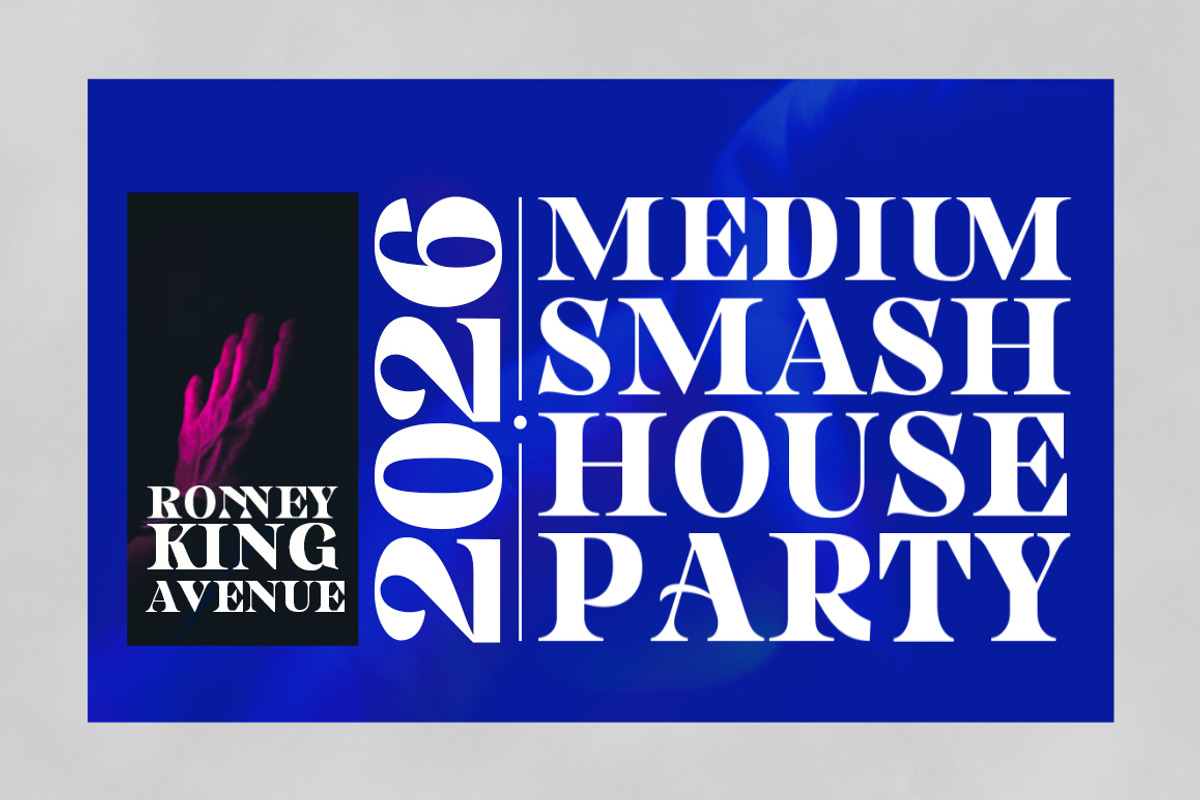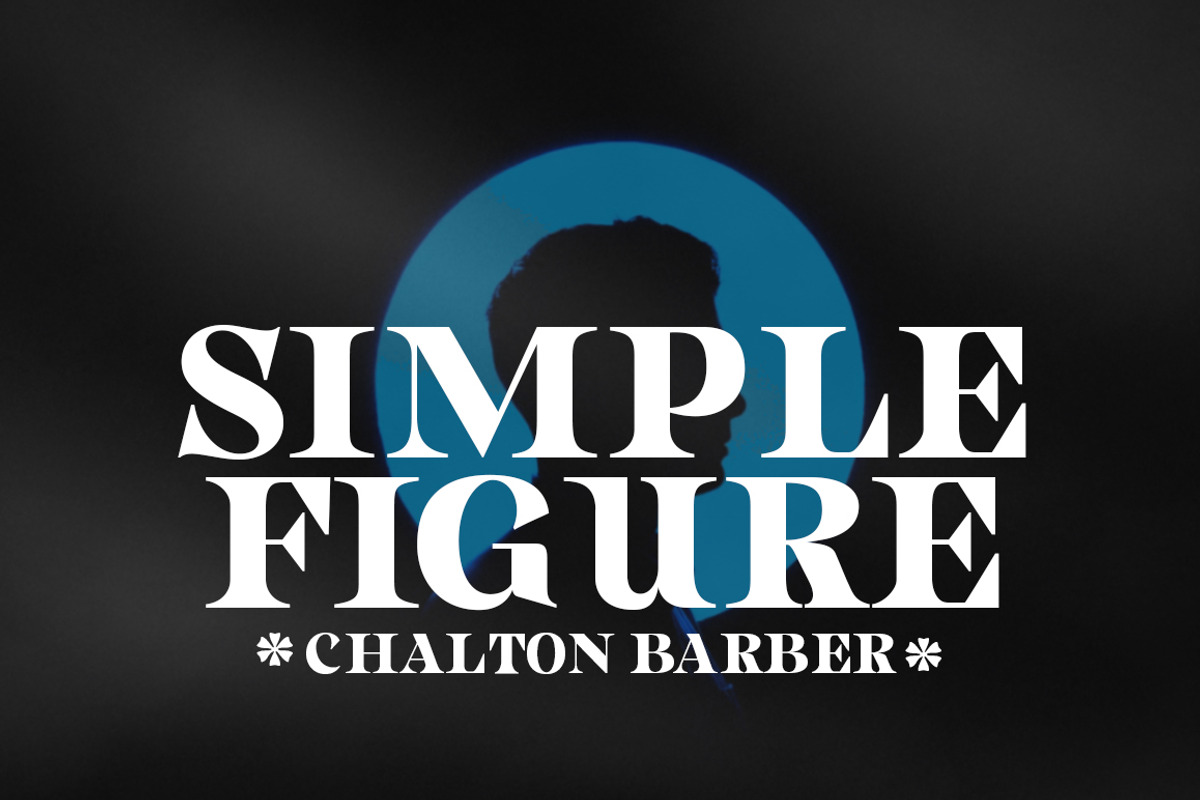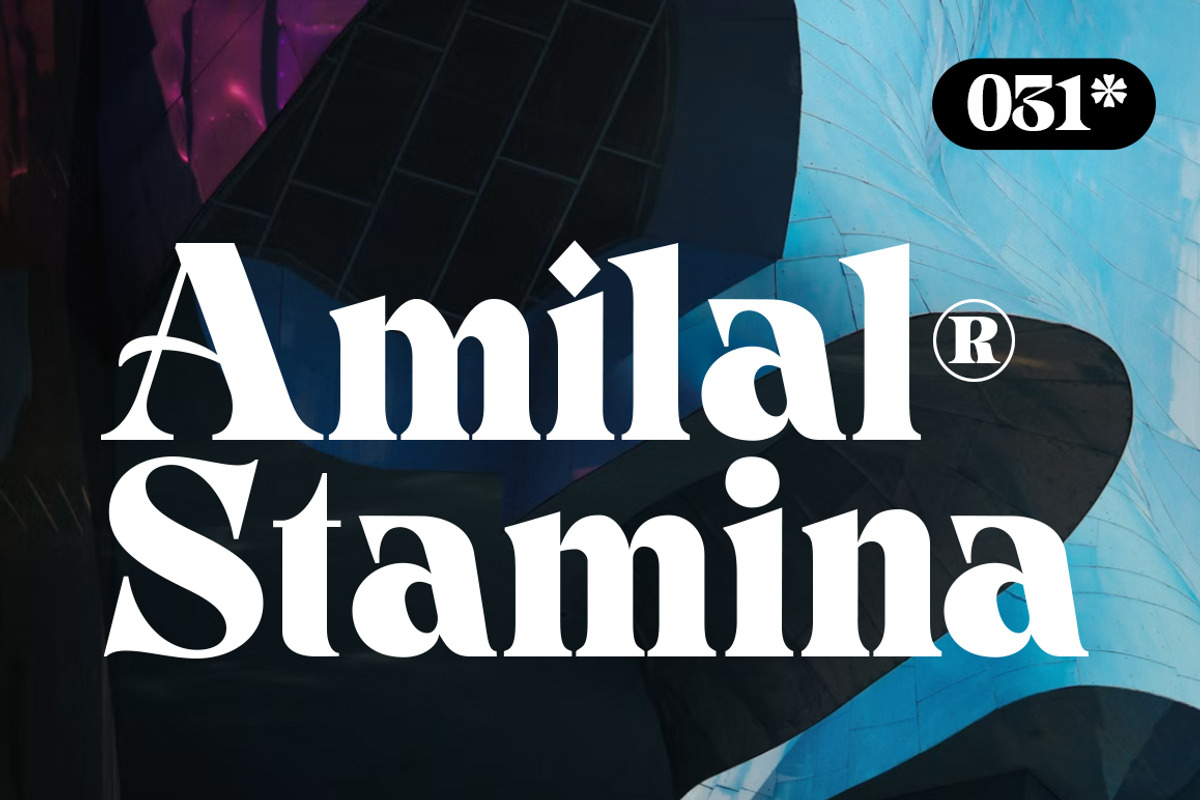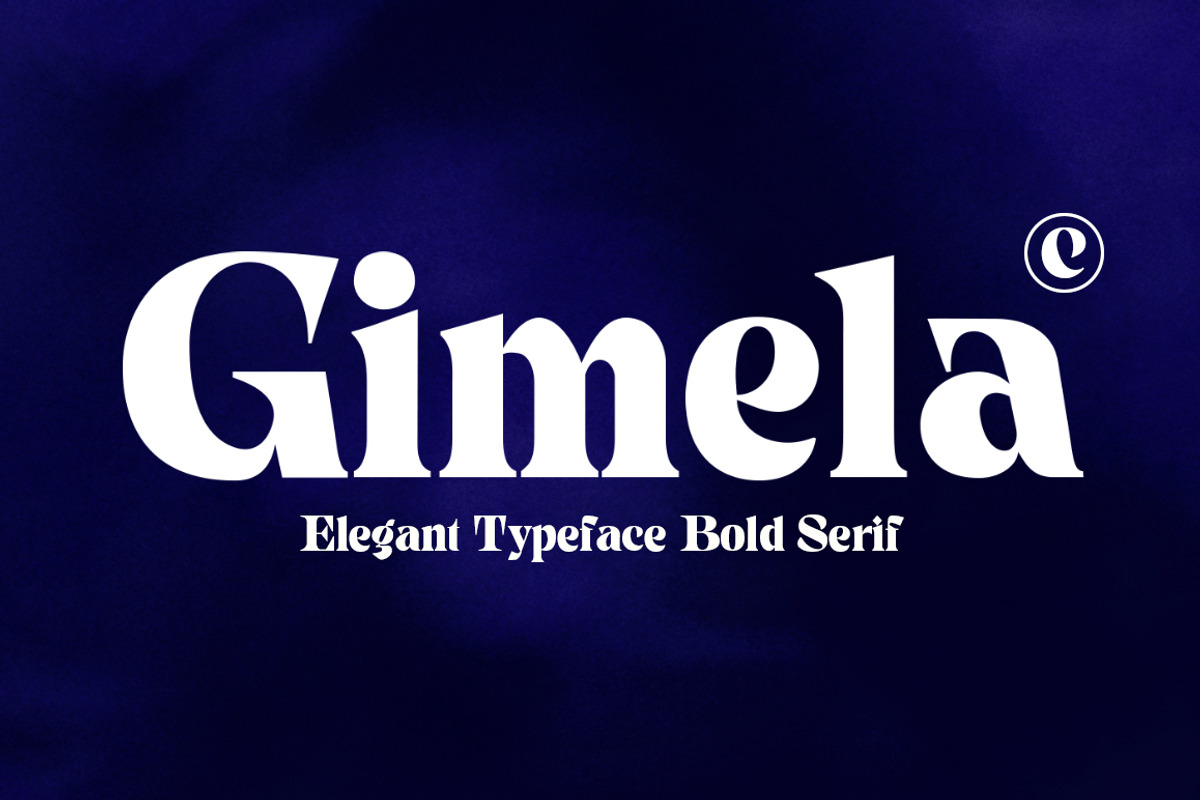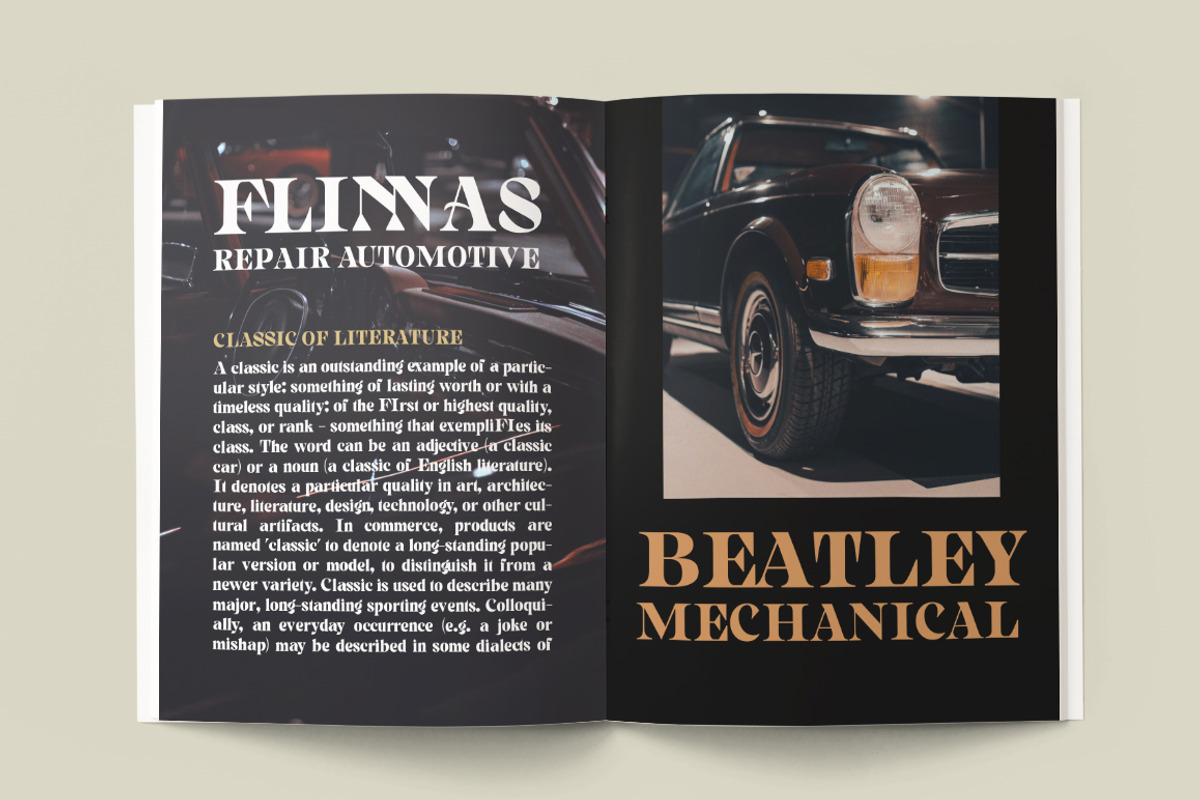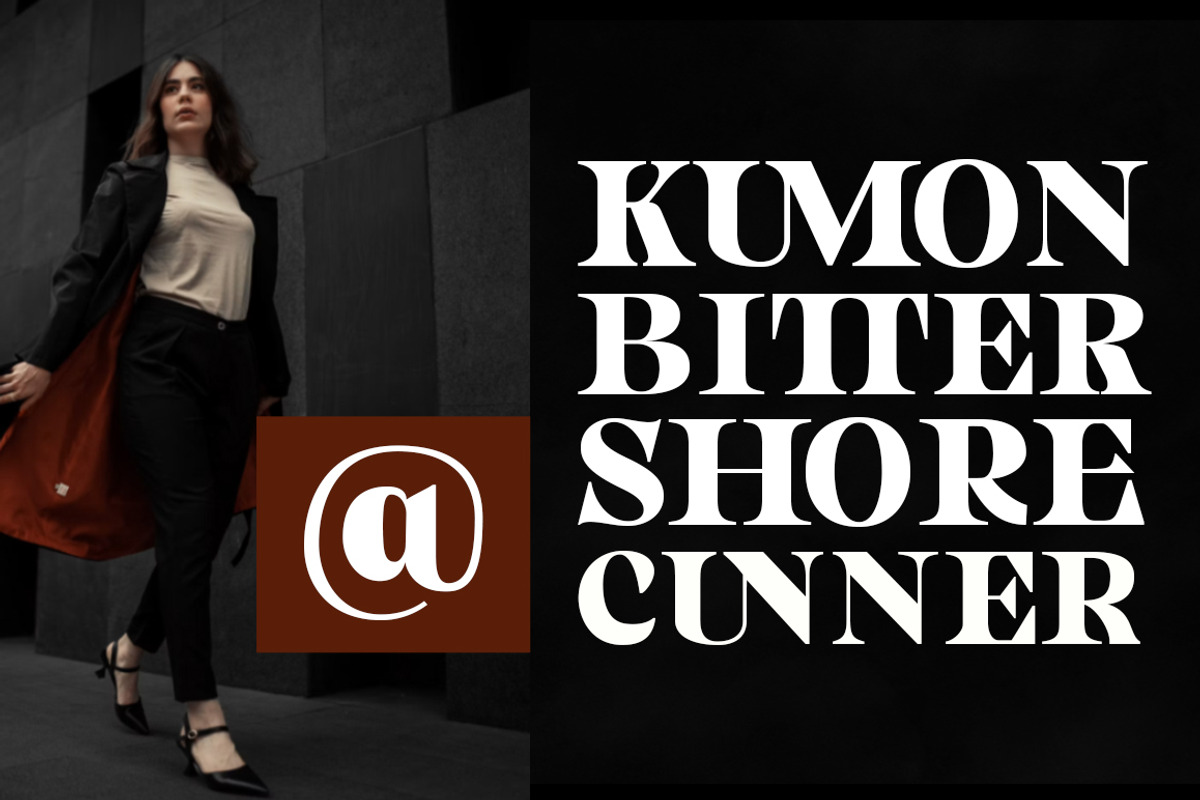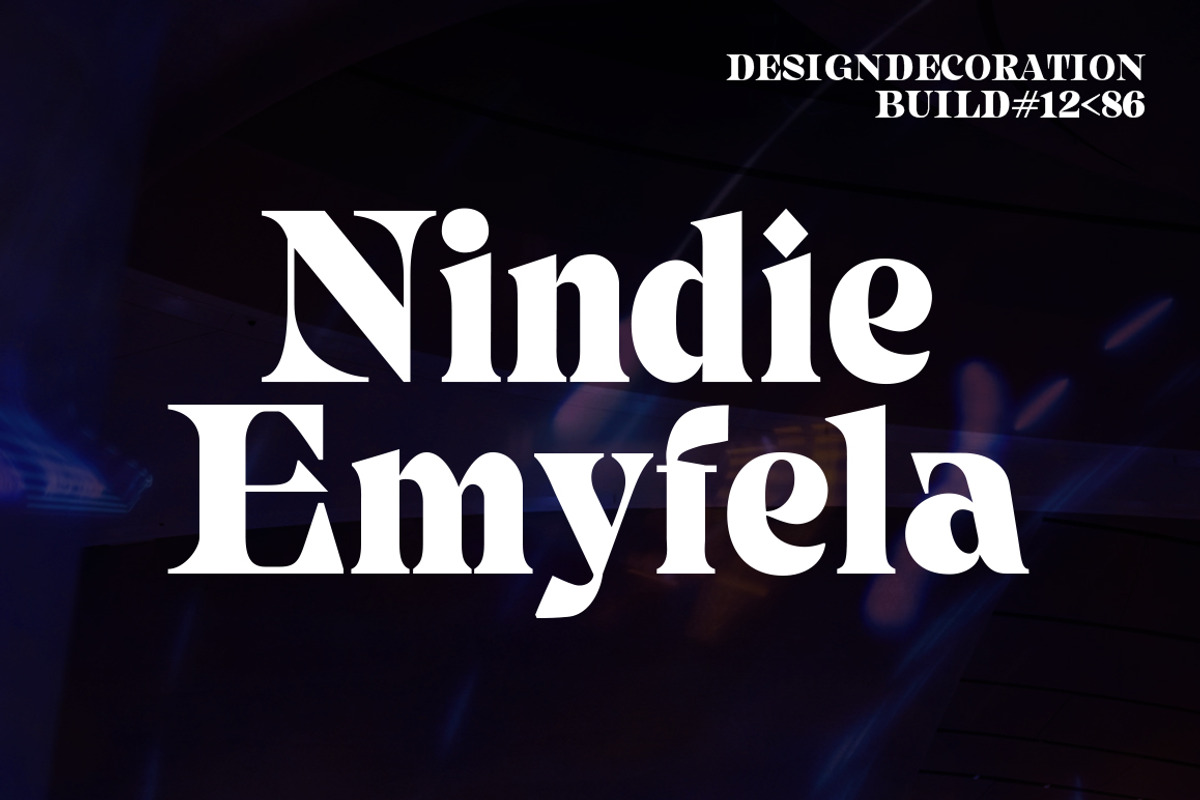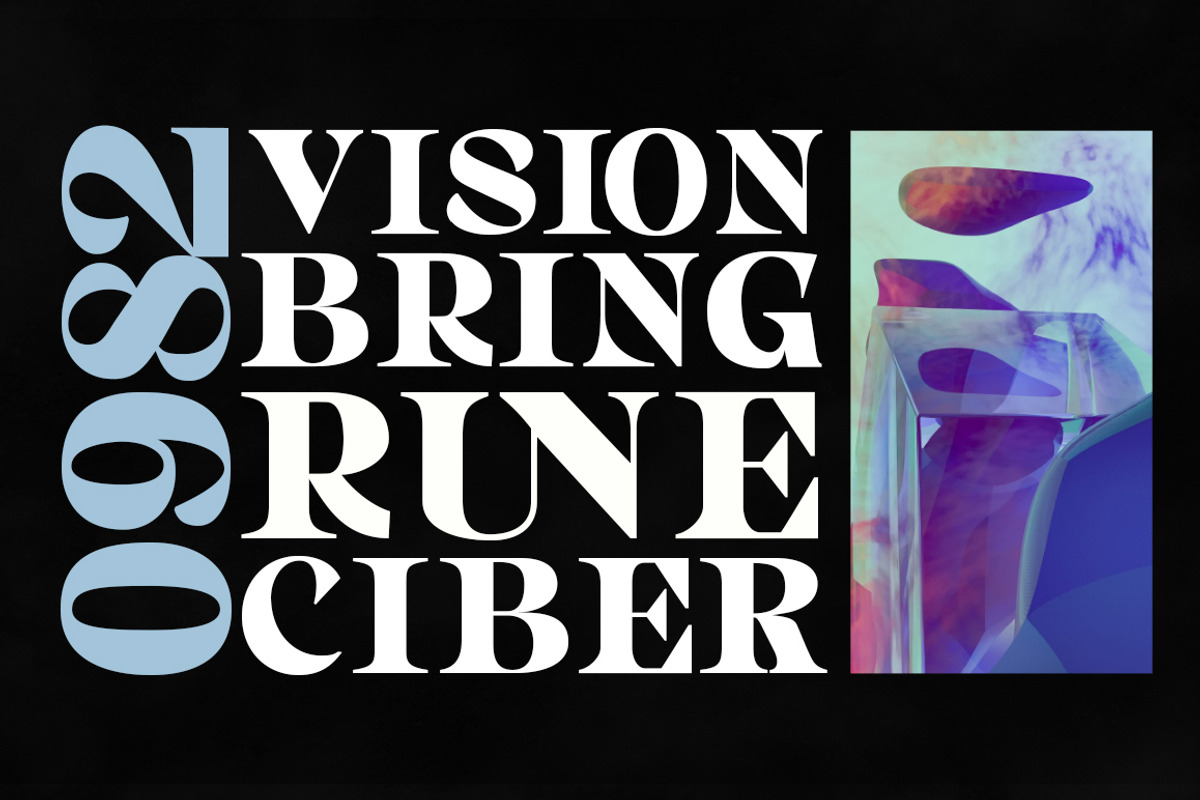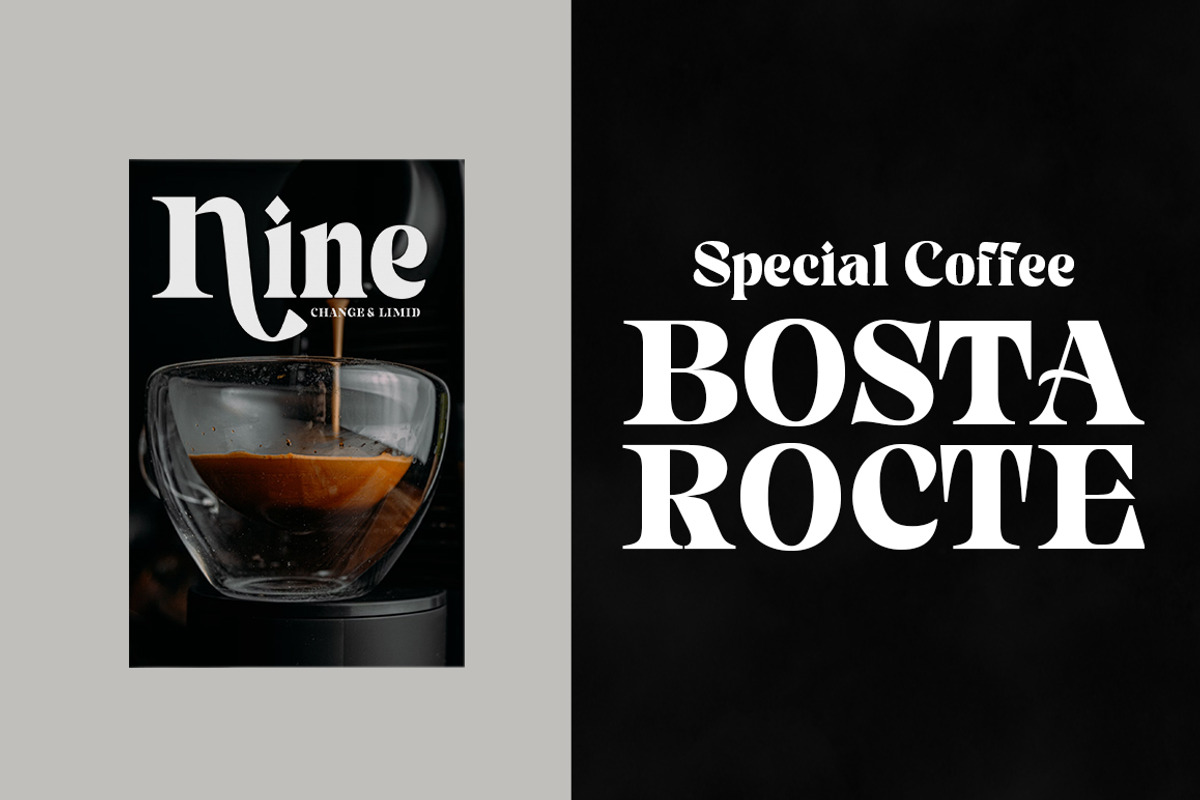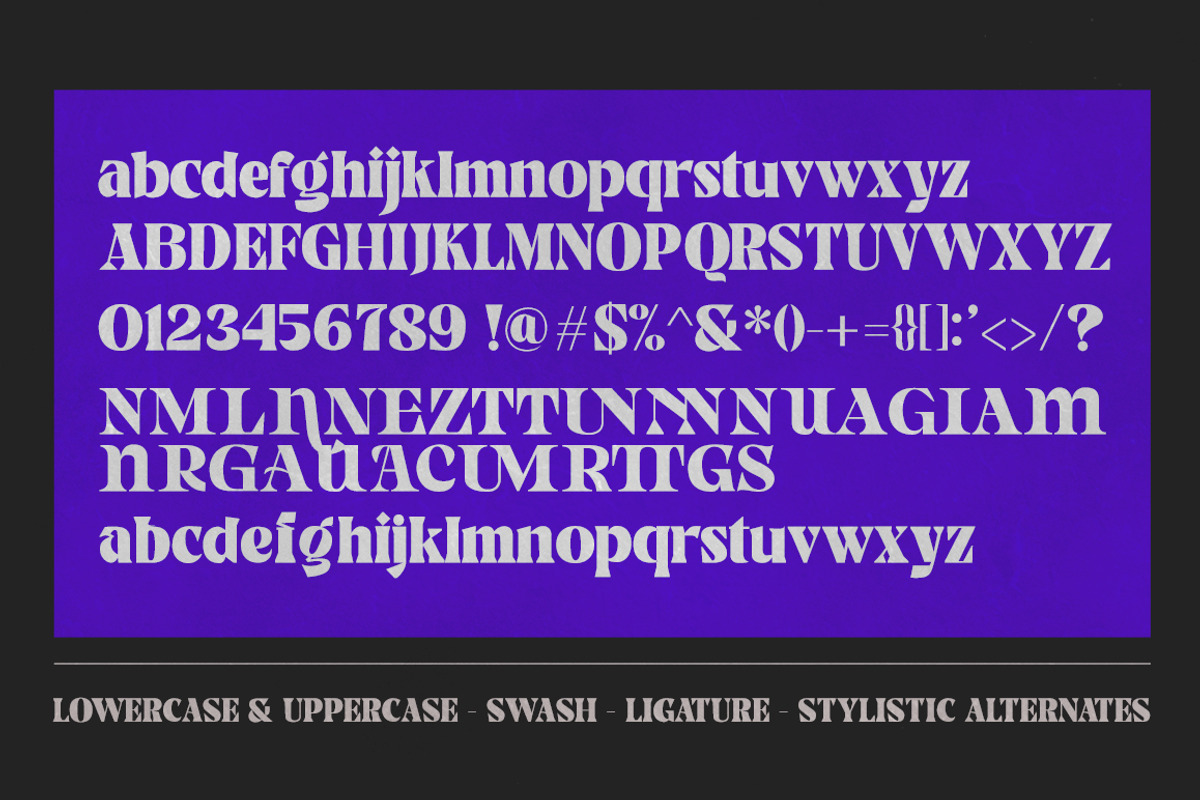
Gimela
Gimela, an editorial-style display serif font inspired by a monumental story, offers a bold, unique character and a soft, captivating touch.
Using the Gimela typeface will enhance your design and provide the flexibility to combine various weight options. In addition to supporting a wide range of languages and various weight options, you can also customize your brand design using alternate characters and ligatures for a special touch.
Gimela also comes with a comprehensive character set, including:
uppercase and lowercase letters
multilingual characters
numerals
punctuation
ligatures